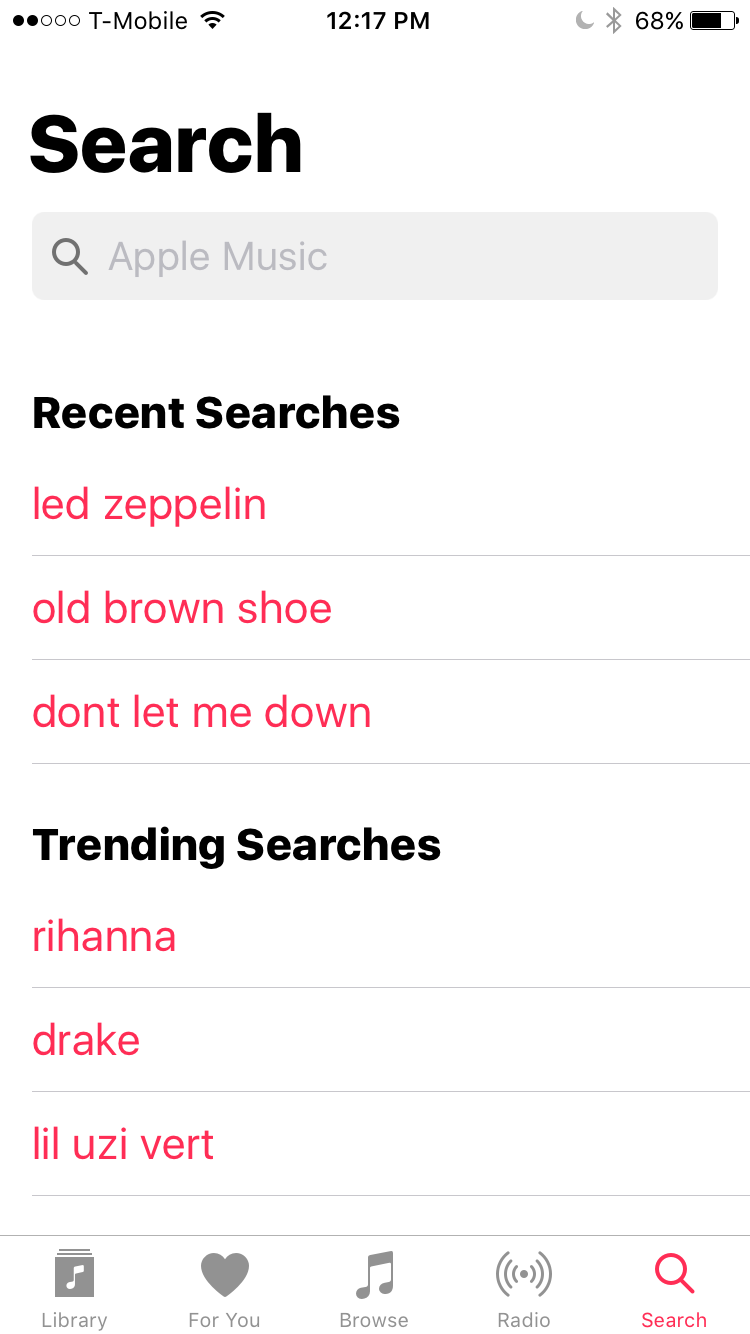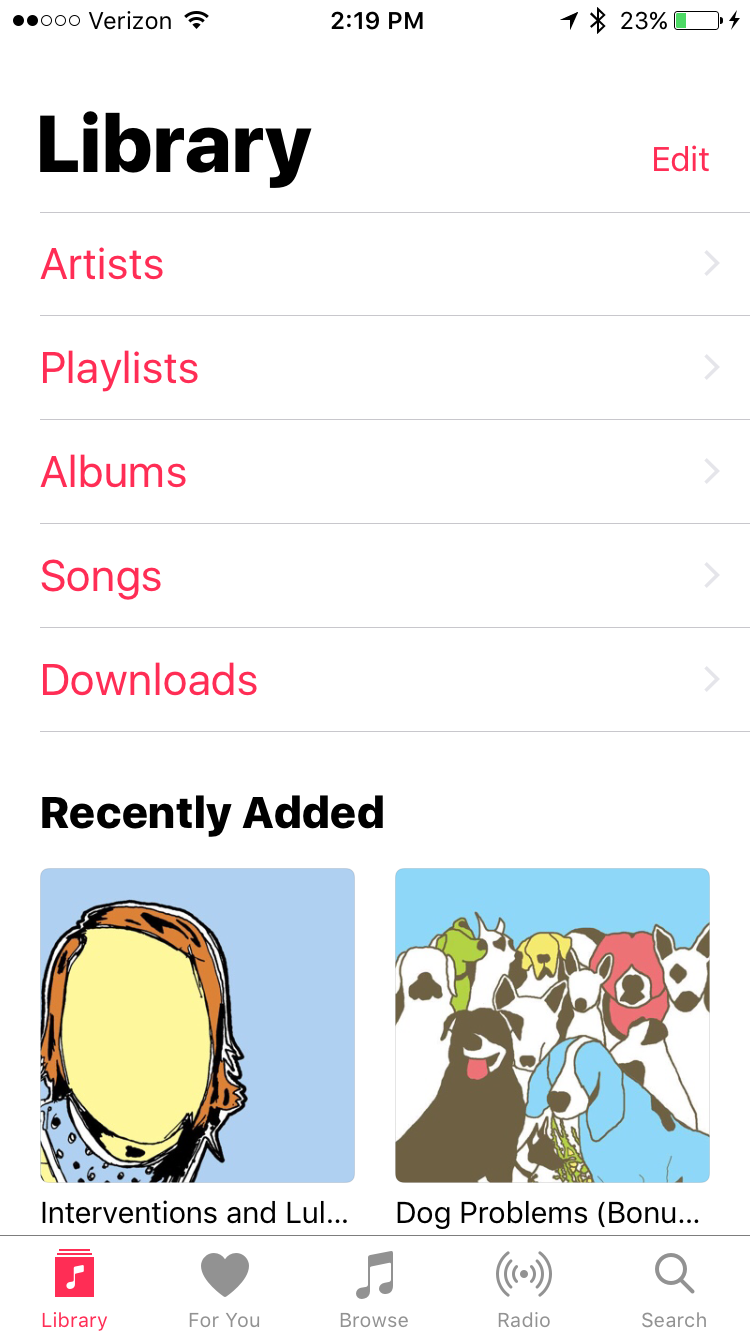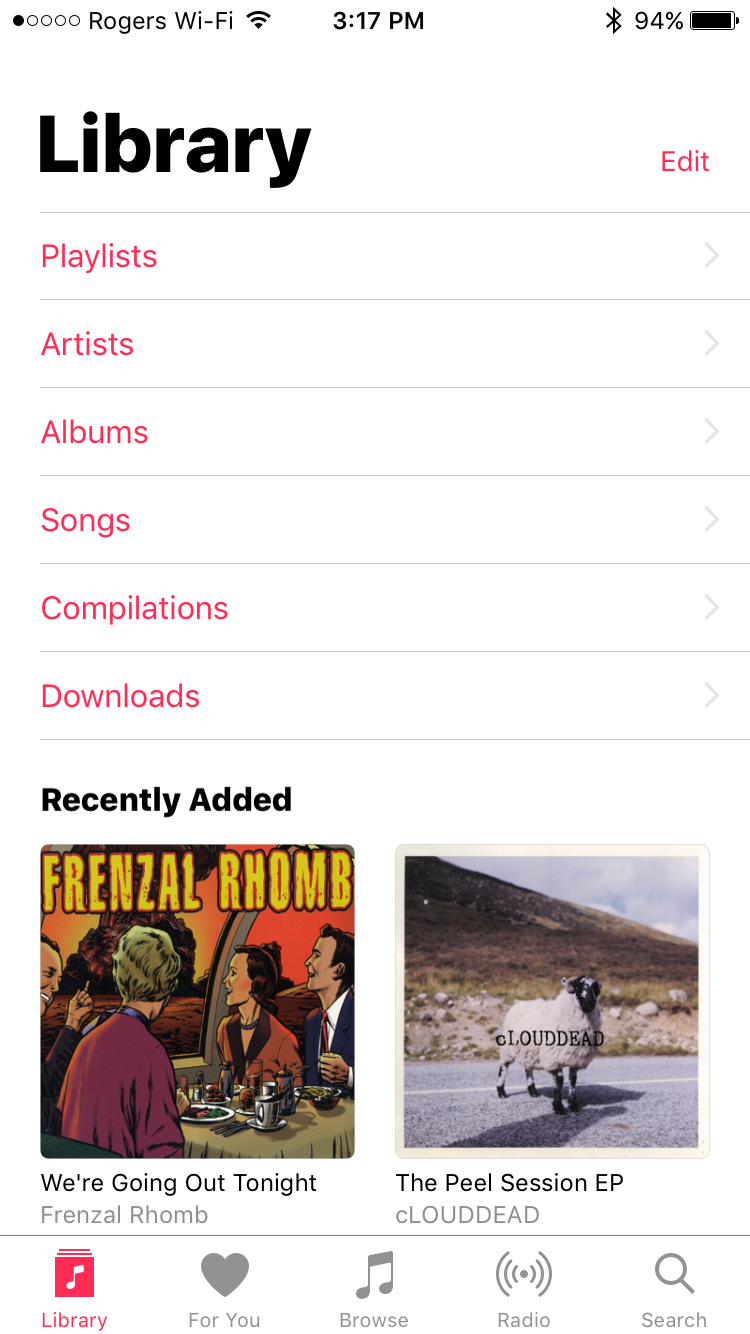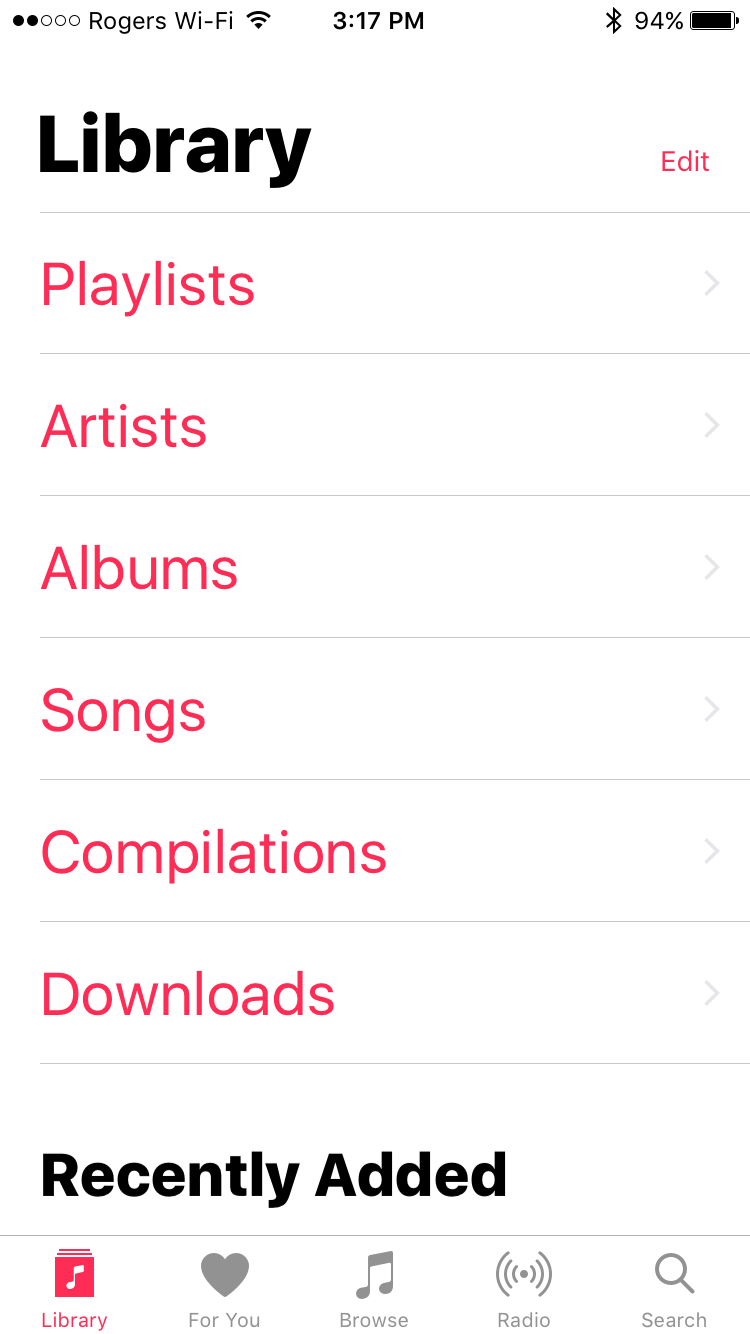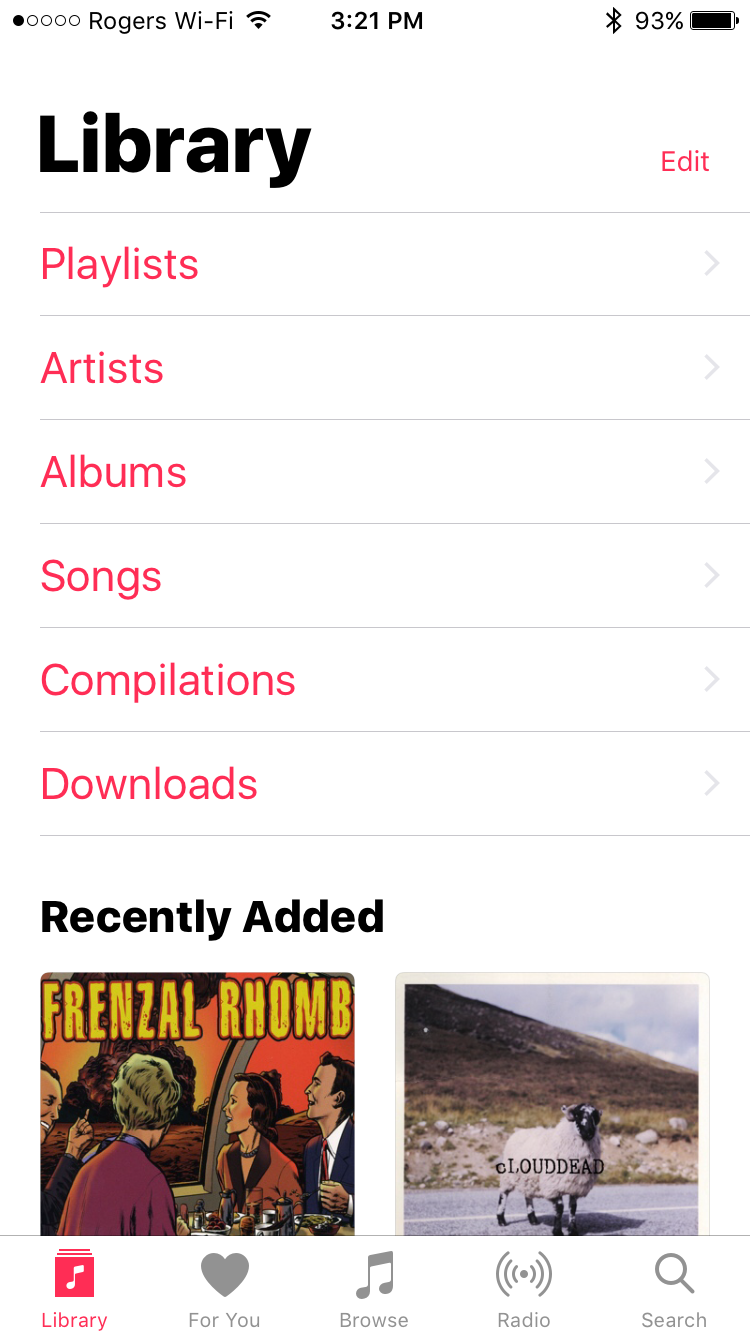
People are reporting that the font was made smaller in b2, but I haven't seen that on my device. Is it possible that people had Text Size set smaller in Settings and it wasn't applying to Music in b1 but it is in b2?
Font in music is still large for me as well.
I really want to know if people who are experiencing the font shrinking on them also use a smaller system Text Size.
With the large fonts, it looks like a grade six developer trying to make an app for the first time. Pretty sad.
In B1 font size wasn't adjusted according to the general font size settings system wide.
The font size you pick is now working in the Music App.
I use a smaller system text size. However, even when set back to the default system text size you can still notice a difference between beta 1 and beta 2. In beta 1, the "recently added" would cut off about half of the first row of albums. Now it shows a full album cover.
Apple fixed how the font look when the system font was set to smallest. It was bugged in beta 1 where the smallest setting was identical to largest. (See my screenshots. #1 is how it previously looked when font was set to smallest. #2 is how it now looks when set to smallest. Bug is fixed. #3 is how font always looked when set at middle.)
Honestly, just one unit down makes everything perfect. I've really gotten used to the new Apple Music. I like it!
So the big, bold LIBRARY and other headings are still huge in size? I'm going to consider this "bug" still not fixed.
Not all headers stay "huge". Did you not see the "Recently Added" header in my screenshots?
The bug is fixed. Because everything that is supposed to be affected by the system font size setting now works as it should. Just because you don't like it, doesn't mean it's a bug.